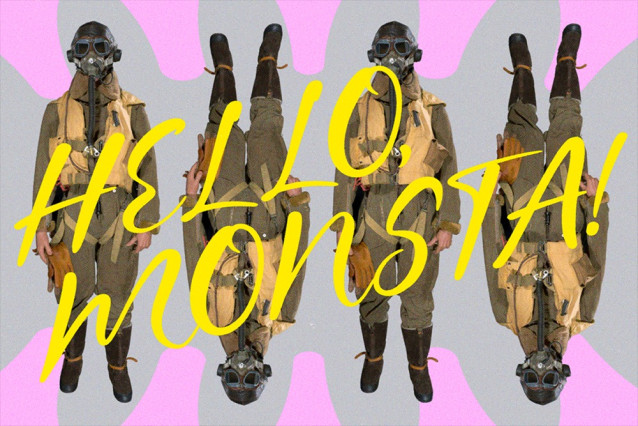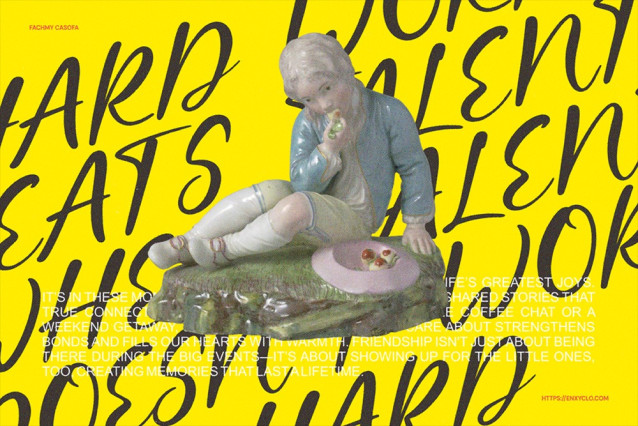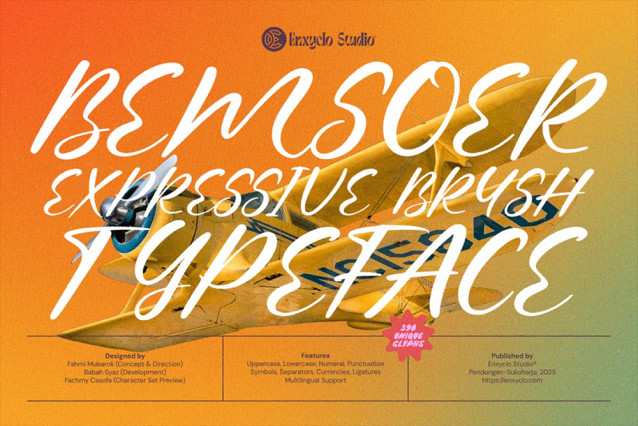
Bemsoer Font
Bemsoer Font is a bold and expressive brush script font that exudes energy and spontaneity. Handcrafted with a dynamic stroke style and vintage undertones, Bemsoer is perfect for capturing attention while maintaining an organic and artistic flair. Whether you’re working on retro-inspired visuals or bold branding concepts, this typeface adds charisma and character to every letterform. Bemsoer offers plenty of flexibility for both digital and print design projects.